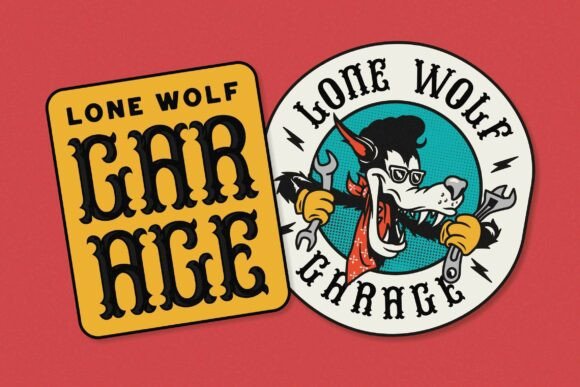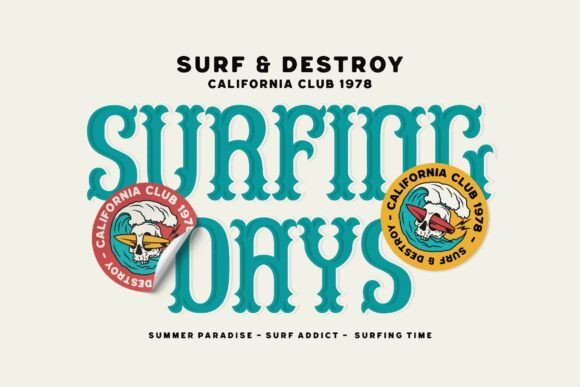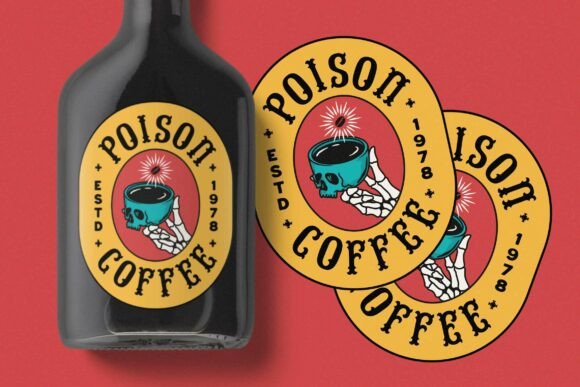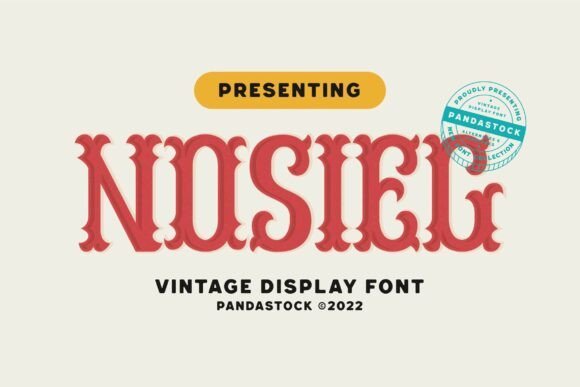
Nosieg is a decorative slab serif typeface, inspired by vintage western and circus poster styles.
The letterforms of this font feature robust, block like serifs that extend outward and terminate in ornaments symmetrical and spiked that evoke victorian era lettering but with a contemporary sense Nosieg feels nostalgic, and a bit theatrical perfect for evoking the feeling of 19th century posters, wild west themes, headlines, posters, circus signage, event invitations or graphics for festivals, fairs, or shows, or any project aiming to capture attention and evoke nostalgia.